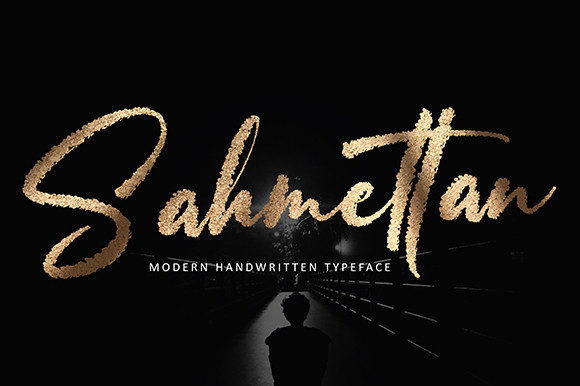
About Sahmettan Font
“Sahmettan” introduces itself as a brushed and beautiful handwritten font, offering a versatile and artistic touch to a variety of project ideas. Crafted to enhance the visual appeal, this font proves to be perfect for an array of creative applications, including quotes, logos, blog headers, posters, branding, letters, invitations, and stationery.
The allure of “Sahmettan” lies in its brushed and beautiful strokes, adding a dynamic and expressive quality to every character. The font’s handwritten charm exudes a sense of artistry that makes it a valuable asset for designers seeking to infuse their projects with a visually pleasing and engaging aesthetic.
When applied to quotes, “Sahmettan” transforms words into visual poetry. The brushed strokes add a sense of movement and depth, enhancing the emotional impact of the quoted text. Whether used for social media posts, wall art, or print materials, this font contributes to a captivating and expressive presentation.
In logo design, “Sahmettan” becomes a distinctive and memorable element. The brushed and beautiful handwritten style adds a personalized touch, making the logo stand out and creating a lasting impression. This font is particularly suitable for brands that seek to convey creativity, authenticity, and a touch of handmade charm.
Blog headers benefit from the unique and artistic flair of “Sahmettan.” The brushed strokes create a dynamic and eye-catching title, setting the tone for the content within. This font contributes to a visually cohesive and engaging blog design.
Posters take on a vibrant and expressive quality with the addition of “Sahmettan.” The beautiful handwritten font adds character to event posters, promotional materials, or artistic prints, ensuring that the message is delivered with both style and impact.
In branding projects, “Sahmettan” serves as a versatile and captivating choice. Its brushed and beautiful handwriting injects a sense of creativity and individuality, making it suitable for a wide range of industries, from art and design to lifestyle and fashion.
Letters and invitations become more than just words with “Sahmettan.” The font’s expressive strokes contribute to a warm and personal touch, creating an inviting atmosphere for recipients. Whether used for personal letters or special event invitations, this font enhances the overall experience.
In stationery design, “Sahmettan” adds an artistic and elegant element. From notecards to envelopes, the brushed and beautiful handwriting elevates the visual appeal, creating a cohesive and aesthetically pleasing stationery set.
In essence, “Sahmettan” transcends the boundaries of a typical font; it becomes a design companion that effortlessly enhances the visual storytelling of diverse projects. With its brushed and beautiful handwritten charm, this font stands ready to make a lasting impression, offering an exquisite and expressive typography option for your creative endeavors, whether in quotes, logos, blog headers, posters, branding, letters, invitations, or stationery.